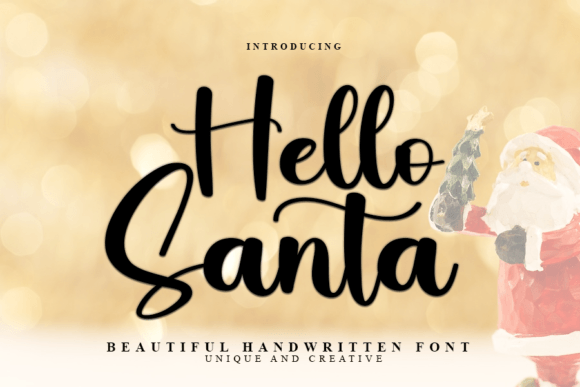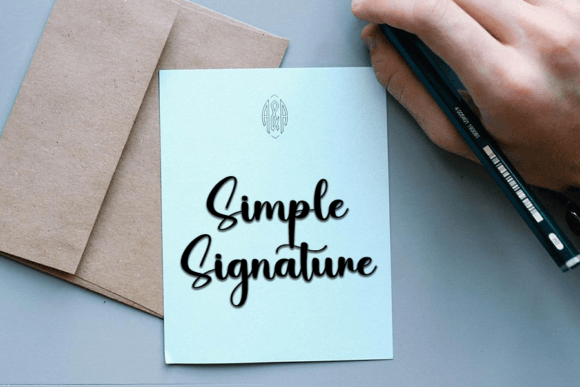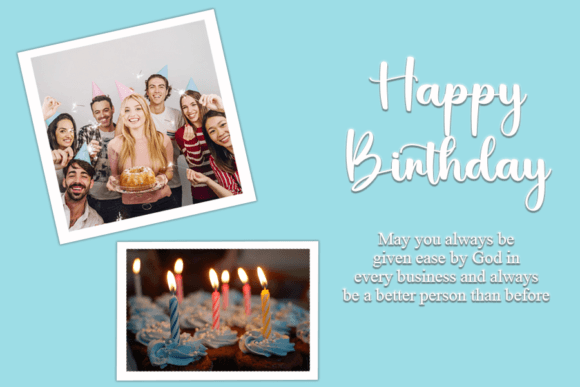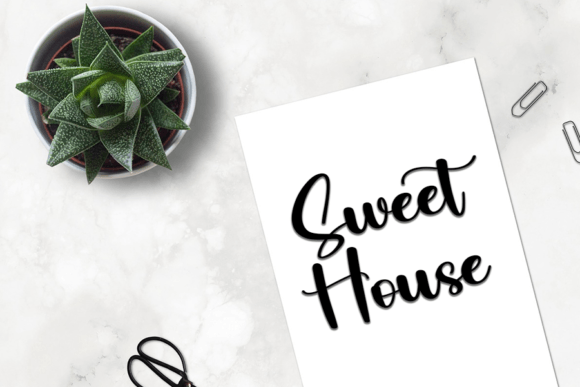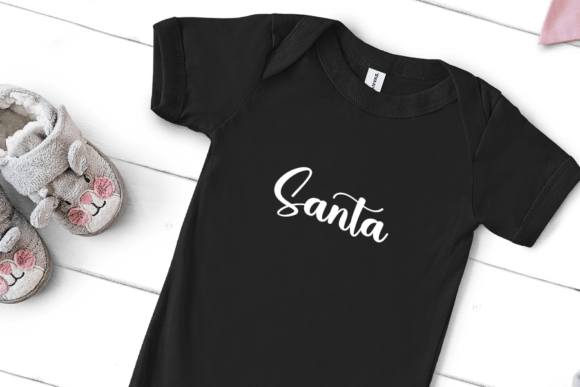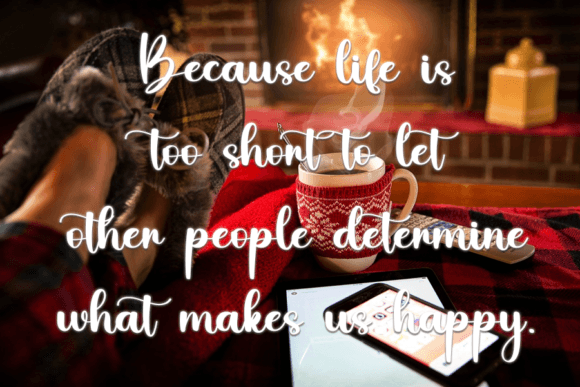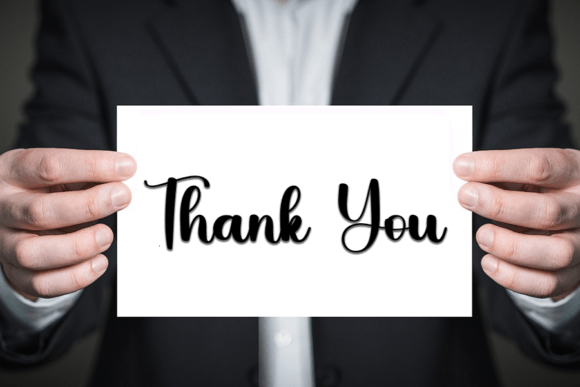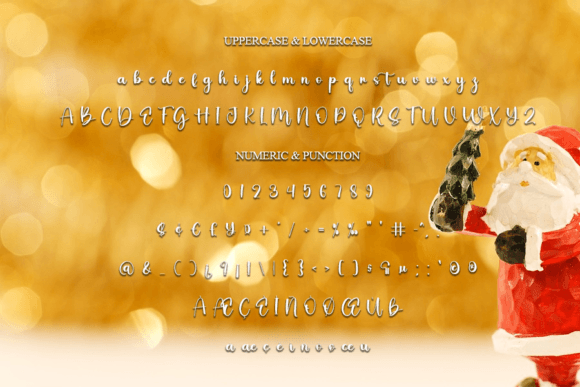
Hello Santa Font
About Hello Santa Script Font
Hello Santa Script Font is a bold and gorgeous handwritten typeface created to bring charm and energy to your creative projects. With striking strokes, smooth curves, and a modern handwritten style, it captures the beauty of calligraphy while offering a confident, polished look. Because of its versatility, Hello Santa Script Font is perfect for invitations, posters, logos, packaging, branding, social media graphics, and festive designs.
A Bold Typeface with Stylish Personality
Handwritten fonts often add individuality, and Hello Santa Script Font takes it to the next level with its bold presence. Its flowing letters combine elegance with strength, making it stand out in both formal and casual projects. In addition, its readability ensures it works equally well for detailed body text and eye-catching headlines.
Special moments deserve fonts that feel personal, and Hello Santa ScriptFont is an excellent choice. For example, it enhances wedding invitations, holiday stationery, and thank-you notes with elegance. Moreover, it adds charm to Christmas cards, seasonal greetings, and festive event menus, ensuring your designs remain warm and memorable.
A Script Typeface for Branding and Packaging
Designers and businesses can rely on Hello Santa Script Font for impactful branding. It shines on boutique logos, product packaging, and promotional materials. Furthermore, it adapts seamlessly to magazine layouts, advertisements, and social media posts. When paired with minimalist sans serif fonts, it creates a professional and stylish identity.
Flexible Across Print and Digital Platforms
Another strength of Hello Santa ScriptFont is its adaptability across different formats. In print, it enriches posters, brochures, and merchandise with sophistication. Digitally, it integrates smoothly into blogs, websites, and online shops. Since it scales clearly from small labels to large banners, it guarantees consistency and readability everywhere.